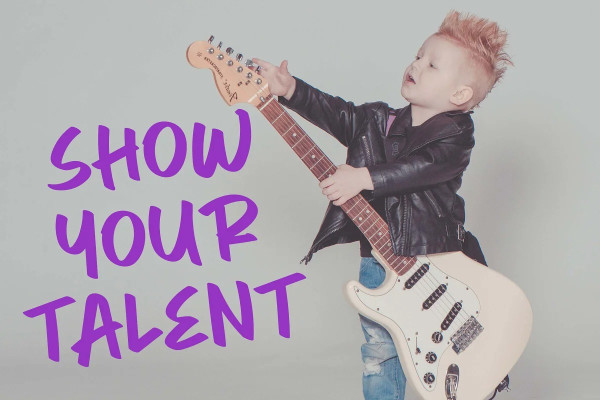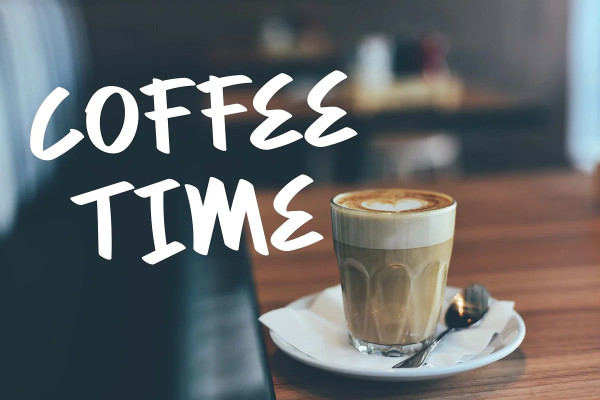
Berkat Font
Berkat Font is a handwritten display font with a strikingly authentic feel font is our new item that is suitable for your Posters. Great for Logo, Poster, Sticker, Jerseys, Invitation Cards, Brochure, etc.